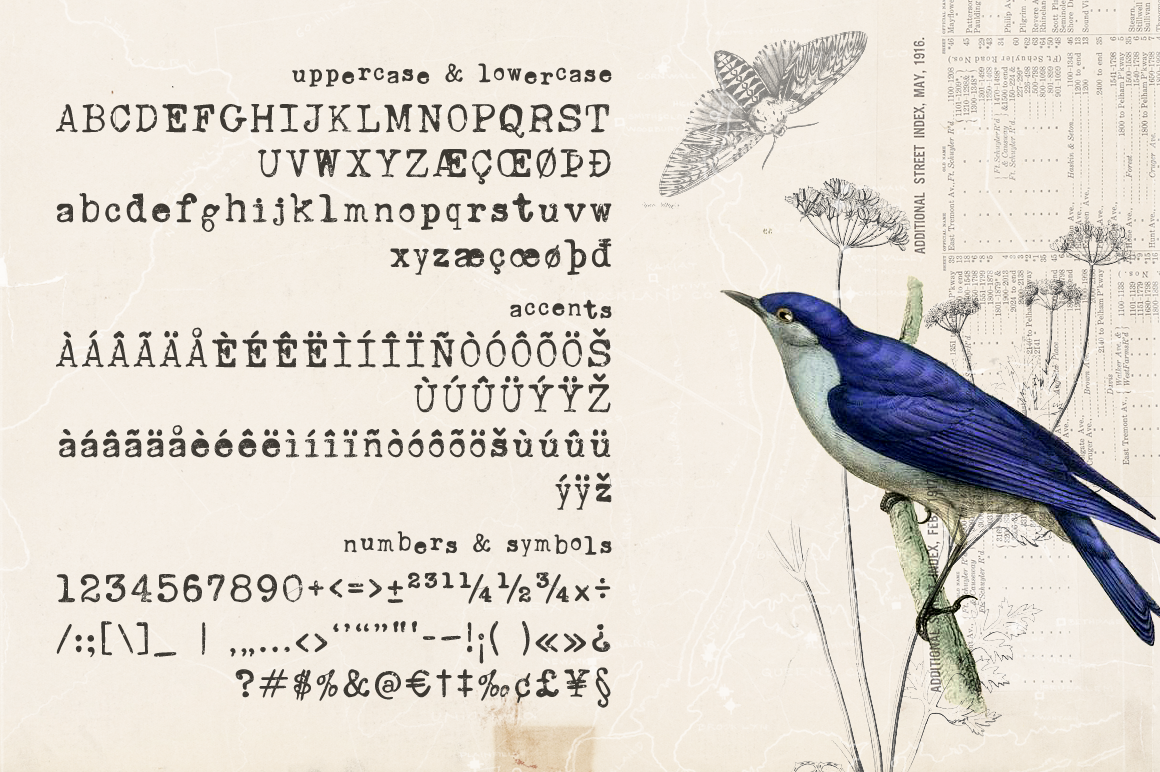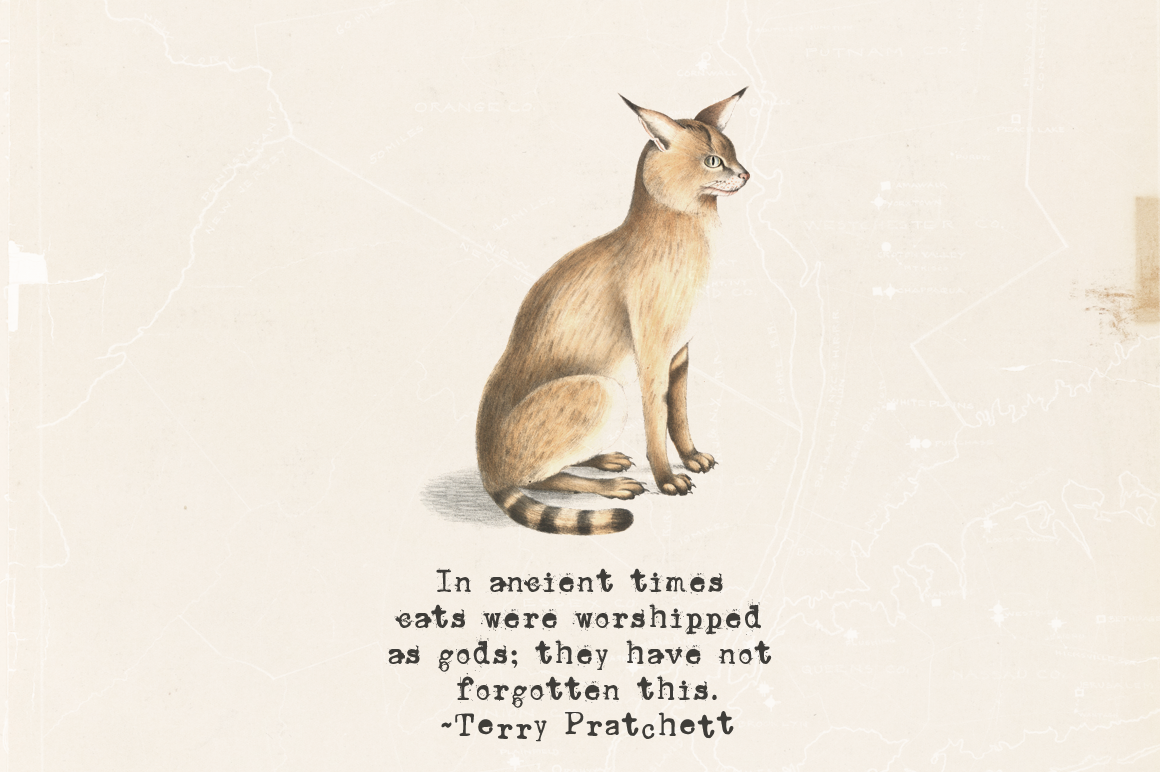
Rusty Typewriter Free Font
Rusty Typewriter Free Font is a hand-drawn font based on an old Underwood typewriter. This free typeface was designed by talented Ana’s Fonts. If you like it don’t forget to check out the full version.